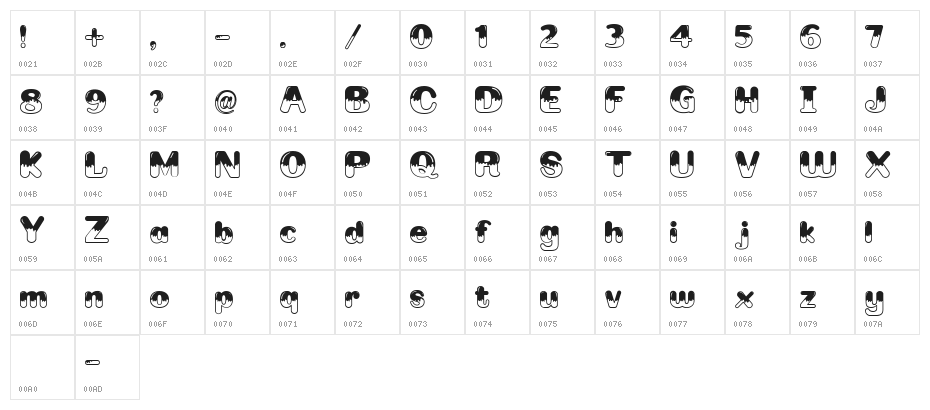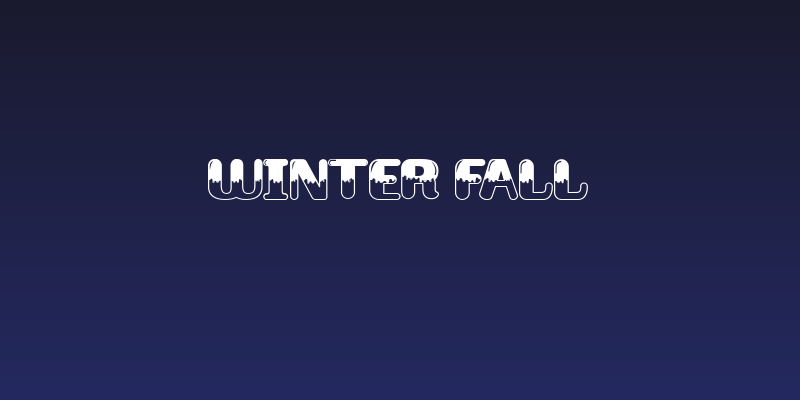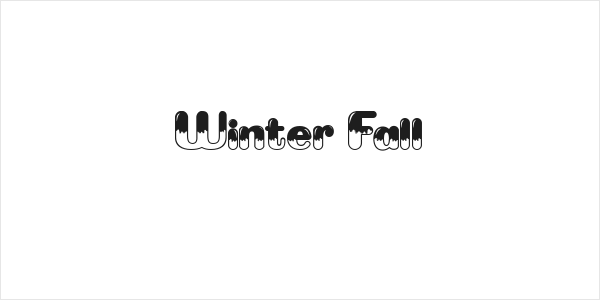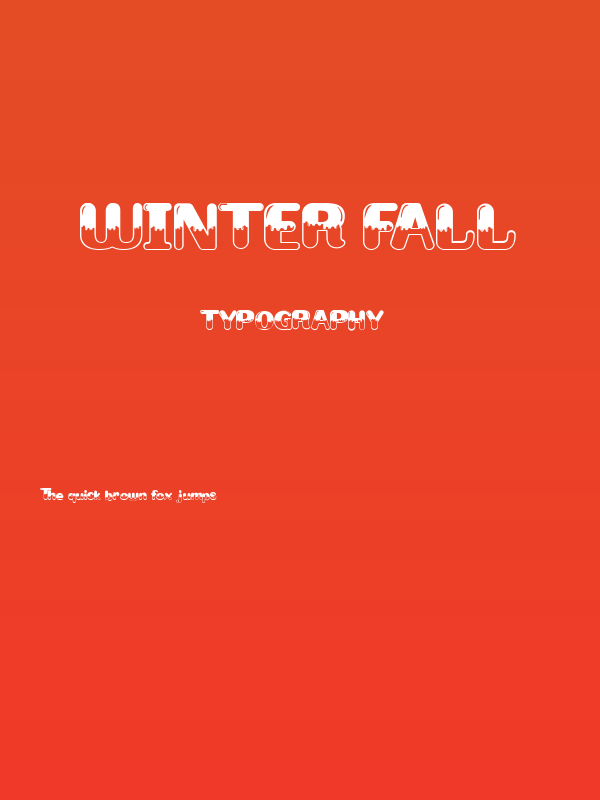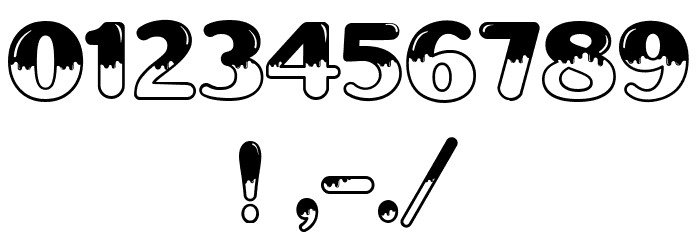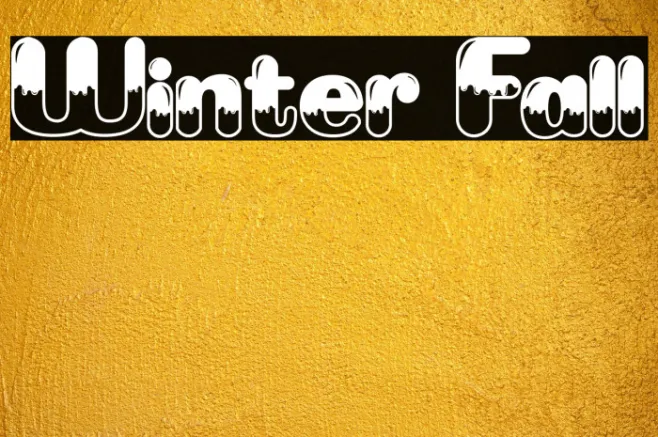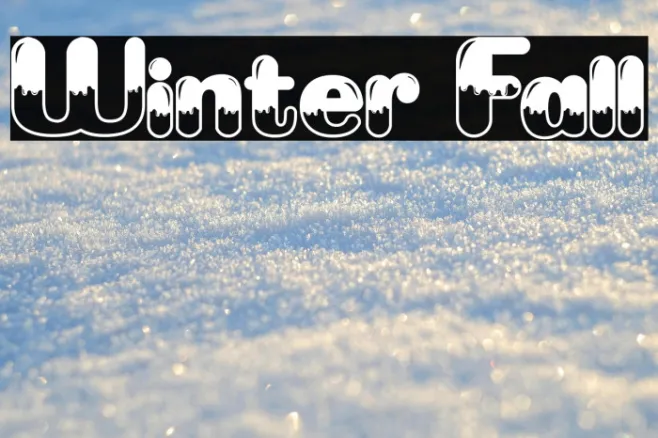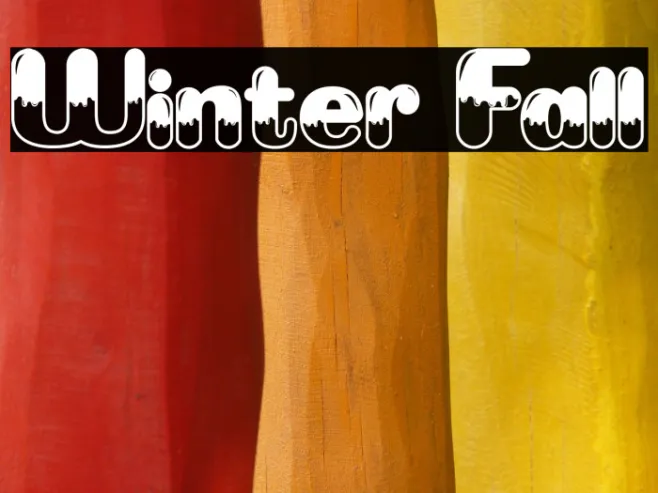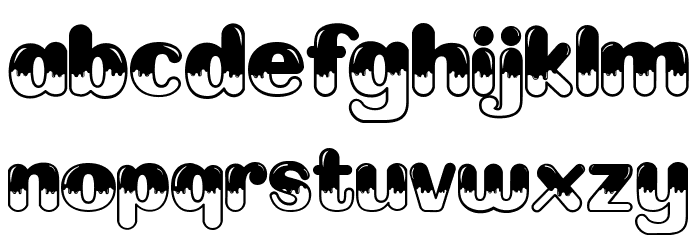
Winter Fall Font
Winter Fall Description
This playful and decorative font features a unique winter-themed design, with each character appearing as if it is covered in snow or dripping with icicles. The bold and rounded letters have a fun, cartoonish style that evokes a sense of whimsy and seasonal cheer. The uppercase and lowercase letters maintain a consistent style, with the snow effect adding a dynamic and eye-catching element. Numbers and special characters are also included, each with the same frosty embellishment, making the font versatile for various creative applications.
| Proposed Projects | Ideal for holiday cards, winter festival posters, children's books, and seasonal branding. |